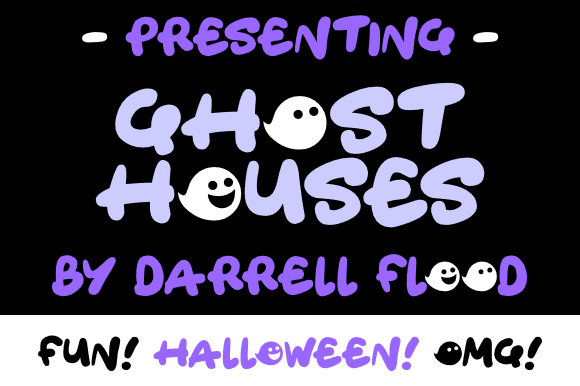
Introducing Ghost Houses Font: The Spookiest yet Cutest Hand-Drawn Font for Halloween
Are you looking for a font that captures the essence of Halloween without being too spooky? Do you want to add a touch of whimsy and playfulness to your designs, crafts, or seasonal themes? Look no further than Ghost Houses Font, a super cute hand-drawn font that’s perfect for ghostly encounters and family-friendly fun!
What is Ghost Houses Font?
Ghost Houses Font is a unique and charming font that’s specifically designed to evoke the spirit of Halloween. With its hand-drawn style, this font features adorable ghostly characters, spooky houses, and other creepy-cute elements that are sure to delight both kids and adults. The font’s playful and whimsical design makes it an ideal choice for a wide range of projects, from Halloween-themed party invitations and decorations to craft projects, social media graphics, and more.
Key Features of Ghost Houses Font
- Hand-drawn style: Each character is carefully crafted by hand, giving the font a personal and unique touch.
- Spooky yet cute: The font’s design strikes the perfect balance between spookiness and cuteness, making it suitable for family-friendly projects.
- Ghostly characters: The font features a range of ghostly characters, including ghosts, bats, spiders, and more.
- Halloween-themed: The font is specifically designed for Halloween, making it perfect for seasonal themes and projects.
Uses for Ghost Houses Font
Ghost Houses Font is a versatile font that can be used for a wide range of projects, including:
- Halloween party invitations: Create spooky yet cute invitations that set the tone for a fun and festive Halloween party.
- Decorations and signs: Use the font to create eye-catching decorations and signs for your Halloween party or event.
- Craft projects: Add a touch of Halloween magic to your craft projects, such as cards, gift tags, and DIY decorations.
- Social media graphics: Create engaging social media graphics that showcase your Halloween spirit.
- Blog posts and articles: Use the font to add a touch of whimsy and personality to your Halloween-themed blog posts and articles.
Why Choose Ghost Houses Font?
So why choose Ghost Houses Font over other Halloween fonts? Here are just a few reasons:
- Unique design: The font’s hand-drawn style and ghostly characters make it a one-of-a-kind font that’s sure to stand out.
- Family-friendly: The font’s cute and playful design makes it suitable for family-friendly projects and events.
- Versatile: The font can be used for a wide range of projects, from party invitations to craft projects and social media graphics.
If you’re looking for a font that captures the essence of Halloween without being too spooky, Ghost Houses Font is the perfect choice. With its hand-drawn style, ghostly characters, and cute design, this font is sure to delight both kids and adults. Whether you’re a designer, crafter, or simply someone who loves Halloween, Ghost Houses Font is a must-have font for your next project. So why wait? Download Ghost Houses Font today and get ready to add a touch of spooky-ooky fun to your designs!